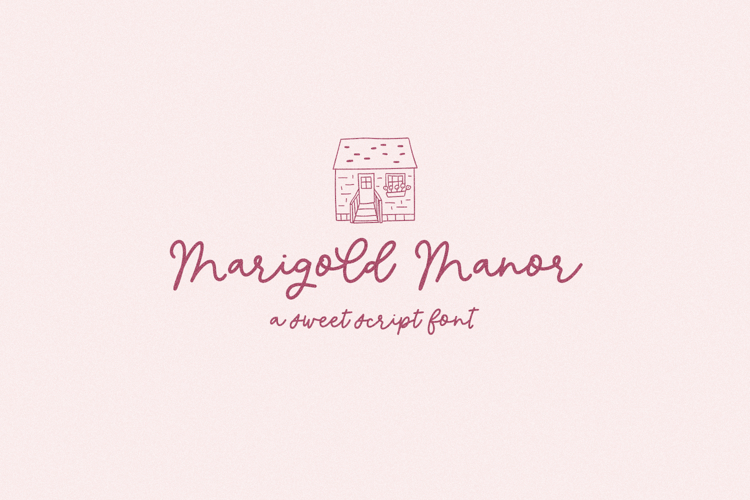
Marigold Manor Script
Marigold Manor is a modern calligraphy font. Marigold Manor Script has clean, thin lines, and also includes a set of alternate characters! This font is perfect for logos & branding, greeting cards, painted banners, digital planners, note-taking apps, Canva, Cricut projects, Silhouette projects, designing SVG files, laser cutting projects, & more.
Marigold Manor Script includes:
- 27 alternate characters - a-z, plus a second alternate r